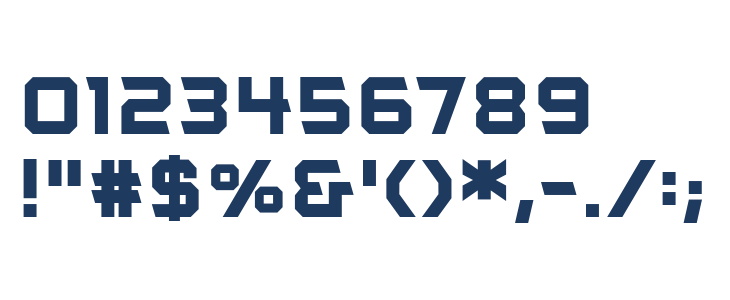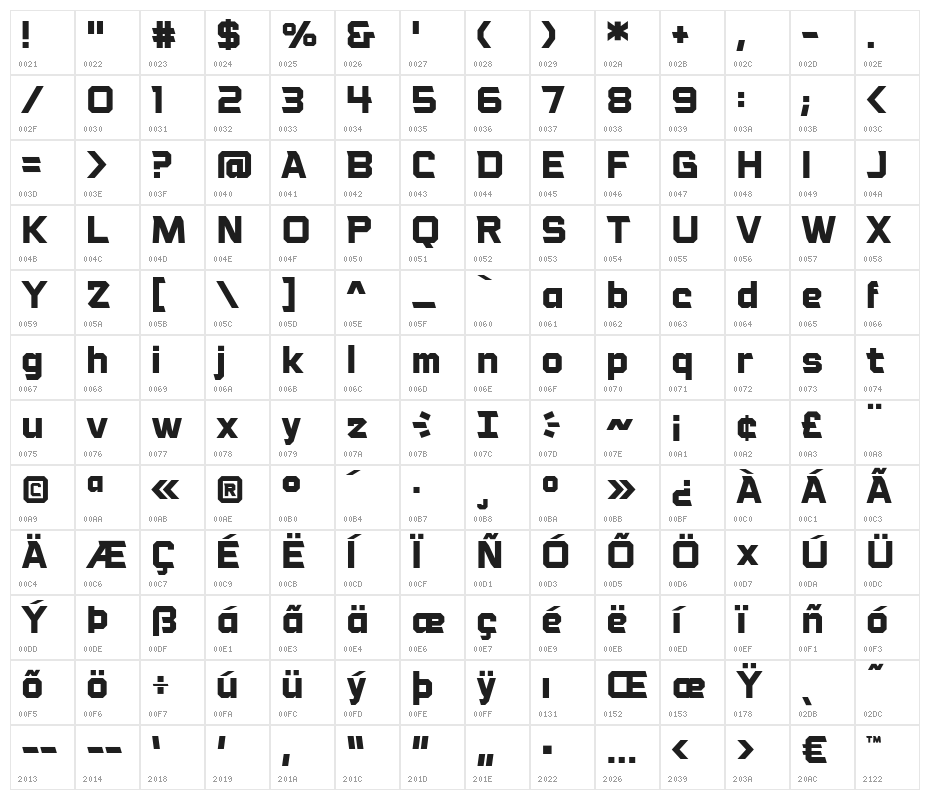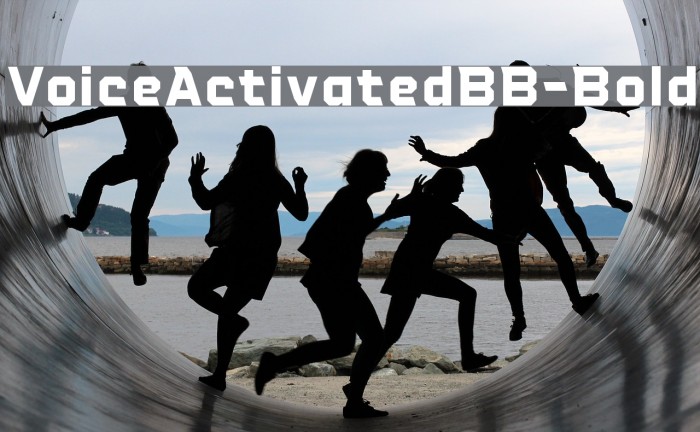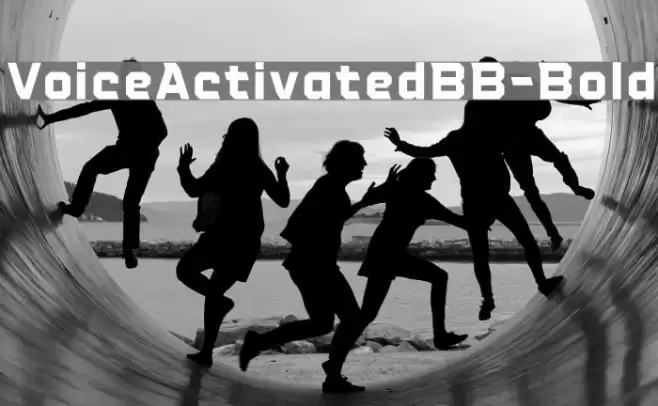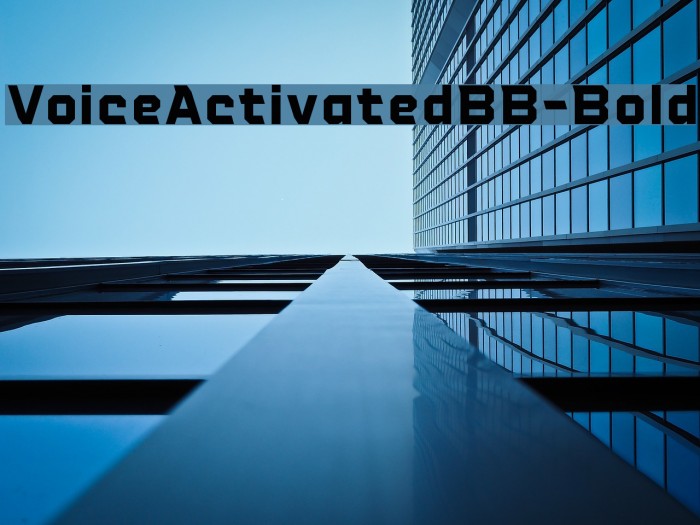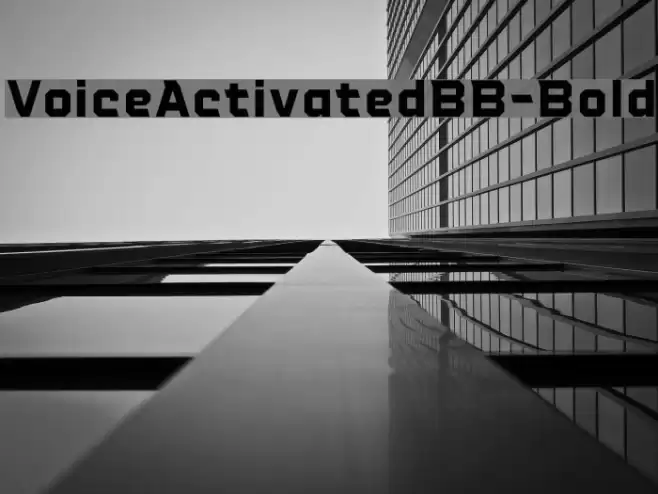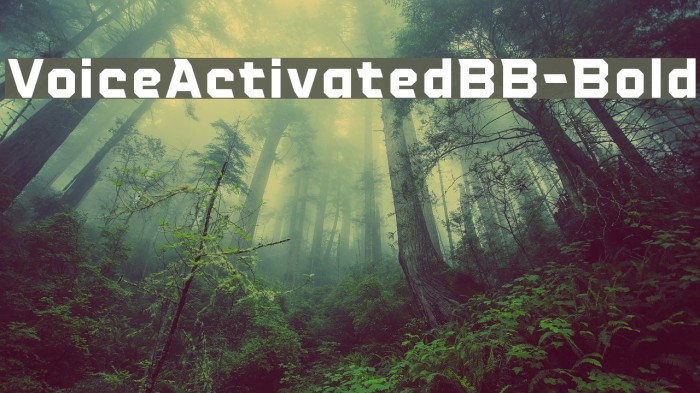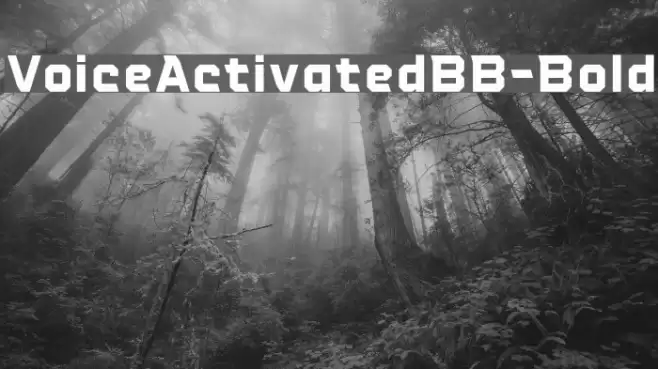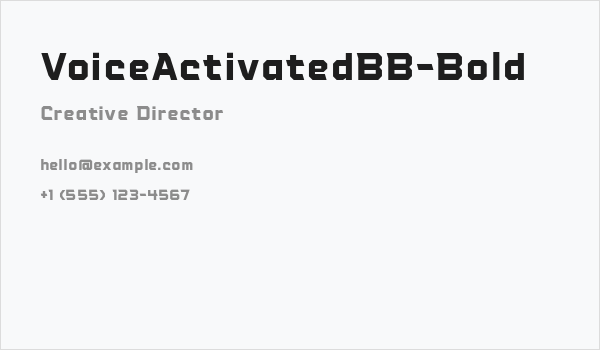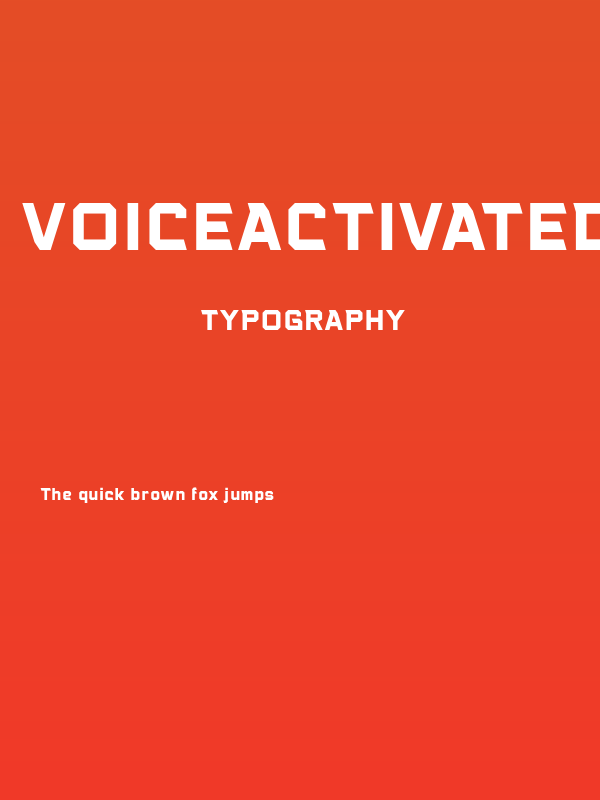
VoiceActivatedBB-Bold Font
VoiceActivatedBB-Bold Description
This font features a bold, geometric design with strong, angular lines and a modern aesthetic. The uppercase and lowercase letters maintain a consistent width, creating a uniform appearance. The characters are blocky and robust, with a slightly condensed form that enhances readability while maintaining a distinctive style. The numerals and special characters follow the same design principles, ensuring cohesion across all elements. This font is ideal for projects that require a contemporary and assertive look, such as branding, headlines, and digital interfaces.